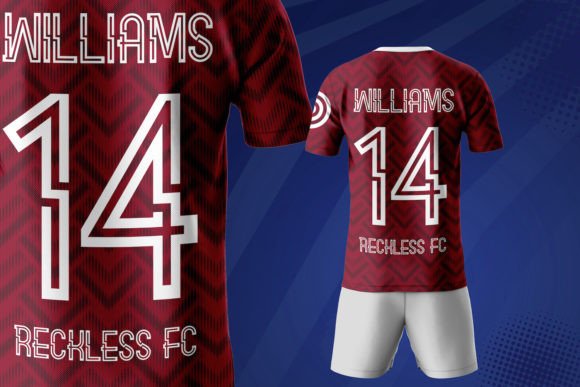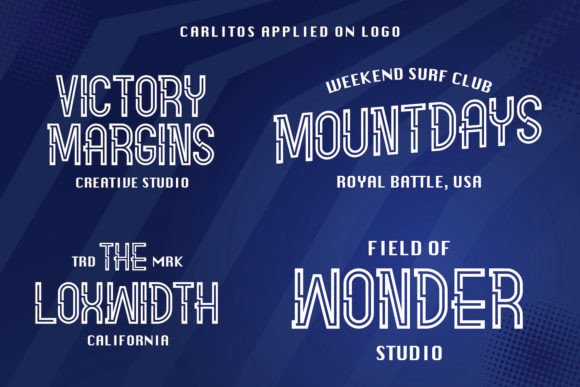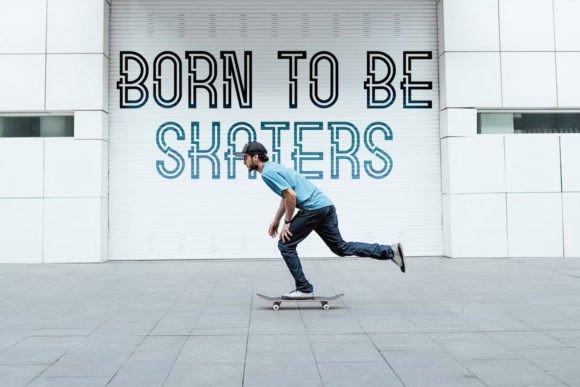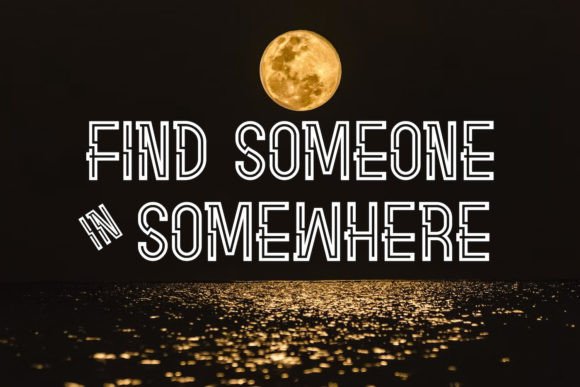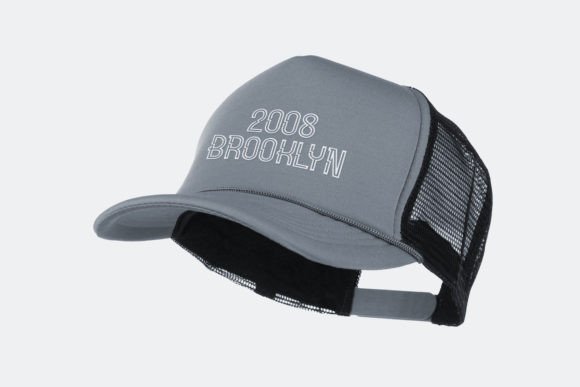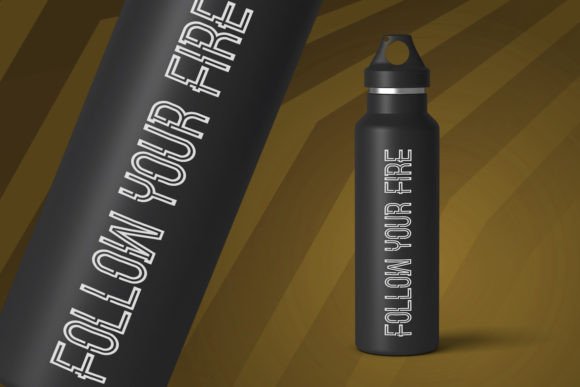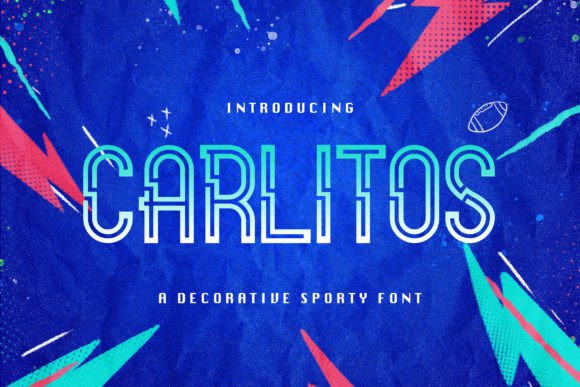
The Designer’s Dilemma: Finding the Perfect Font for Sports Branding
I still remember the time I was working on a project for a local basketball team. I had the logo design all sorted out, but I was struggling to find the perfect font to complement it. The font had to be sporty, modern, and energetic – just like the team. After hours of scouring through font libraries, I stumbled upon Carlitos, a sporty and modern display font that instantly caught my eye. In this article, I’ll share my experience with Carlitos, its features, and how to make the most of it in your designs.
First Impressions: A Review of Carlitos
Carlitos is a playfully conceptual typeface font that’s perfect for sports branding. Here’s what I love about it:
- ✨ Sporty and modern vibe: Carlitos has a fresh, energetic feel that’s perfect for sports teams, events, or products.
- ✅ Highly legible: The font is clear and easy to read, even at smaller sizes.
- 💥 Attention-grabbing: Carlitos is designed to stand out, making it perfect for headlines, titles, or promotional materials.
While Carlitos is an excellent font, it’s not without its quirks:
- 🤔 Limited use for body text: Due to its bold and playful nature, Carlitos is best suited for display purposes rather than body text.
- ⚠️ Glyph support: Some users may find the glyph support a bit limited, but this can be addressed with OpenType features.
The Story Behind Carlitos: Designer Inspiration
Carlitos was designed with the sports industry in mind. The font’s creator aimed to craft a typeface that’s energetic, modern, and attention-grabbing. Inspired by the world of sports, Carlitos combines playfulness with a competitive edge.
| Font Name | Carlitos Font |
| Author | StringLabs |
Here are some common questions about Carlitos:
| What is Carlitos best used for? | Carlitos is perfect for sports branding, including logos, headlines, and promotional materials. |
| Is Carlitos suitable for body text? | While Carlitos is highly legible, it’s best suited for display purposes rather than body text. |
| Does Carlitos support OpenType features? | Yes, Carlitos supports OpenType features, including stylistic alternates and glyphs. |
Overall, Carlitos is an excellent font for sports branding, offering a unique blend of style, energy, and legibility. With its modern and sporty vibe, it’s perfect for designers, crafters, and creative hobbyists looking to create engaging and professional designs.